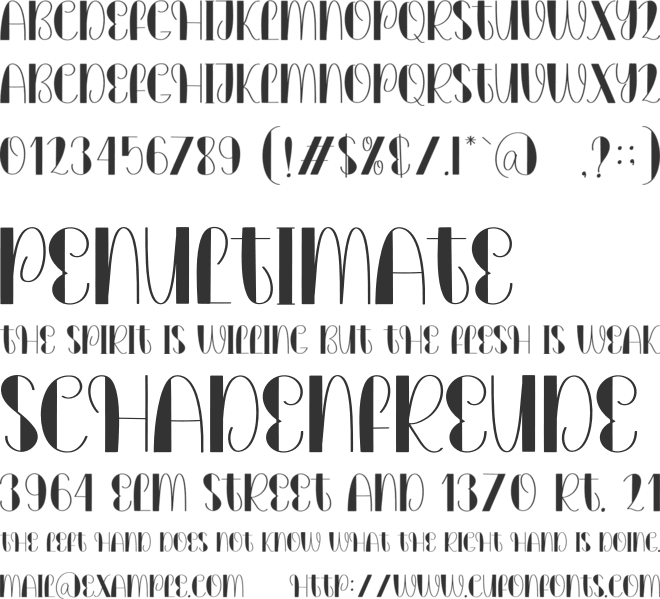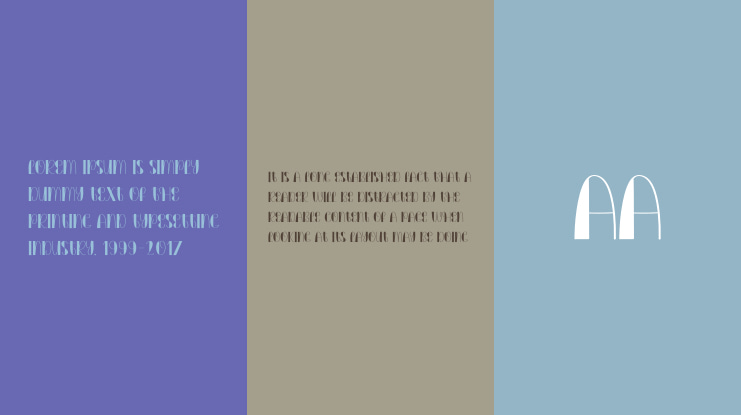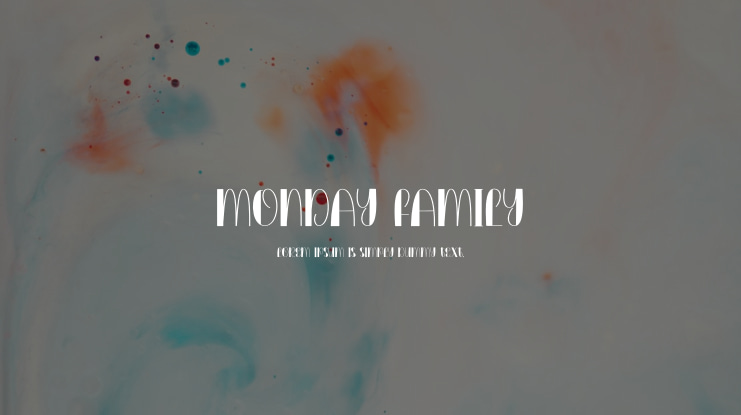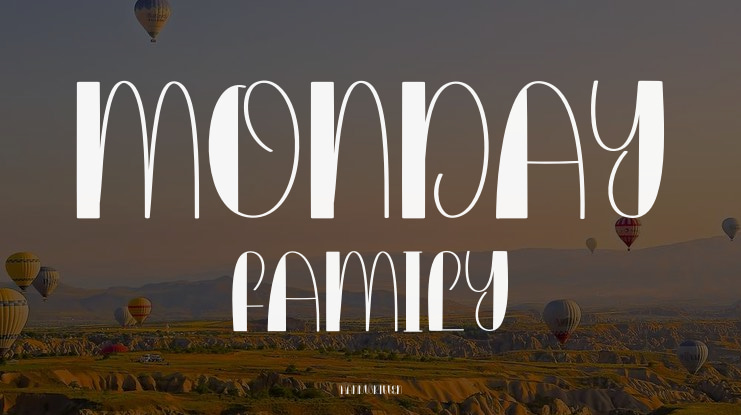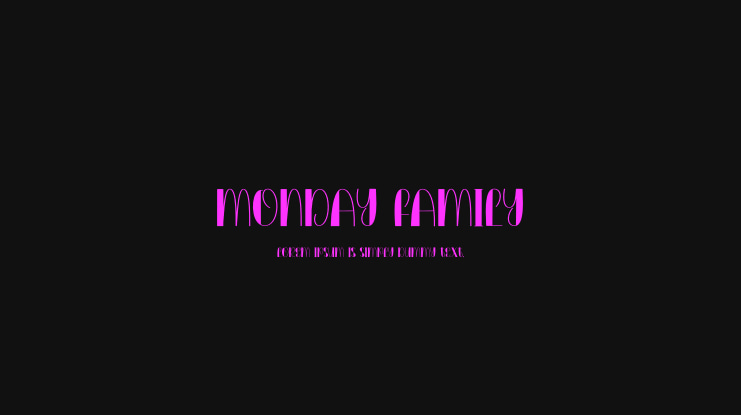
Monday Family Font
Our latest styled lettering is perfect for wall displays, wedding invitations, social media posts, logos, advertisements, product packaging, product designs, labels, photography, watermarks, invitations, stationery, and any project that requires tasteful handwriting.